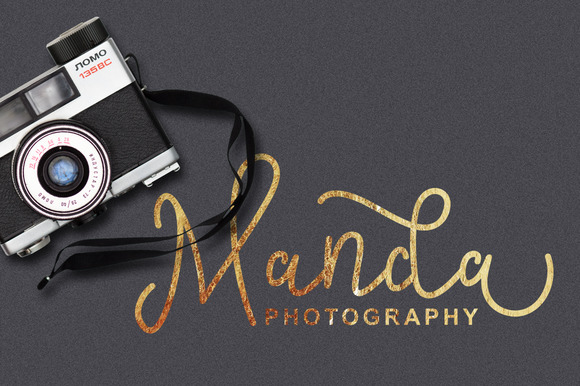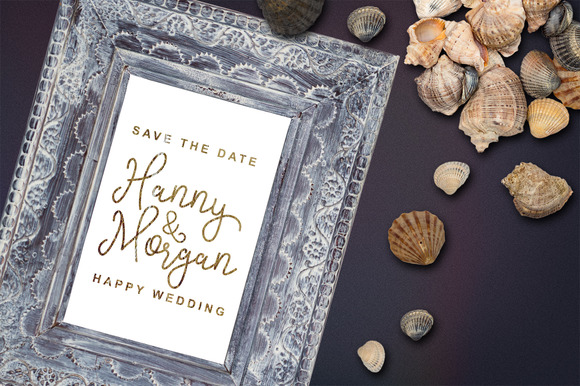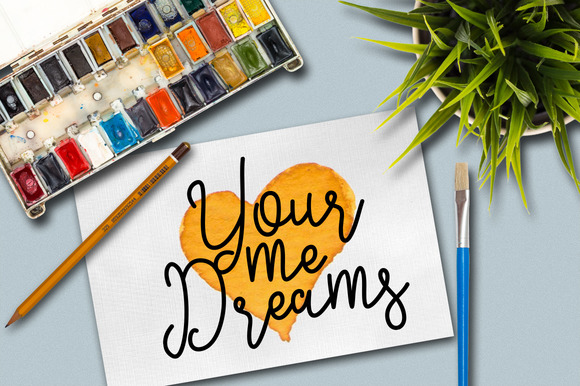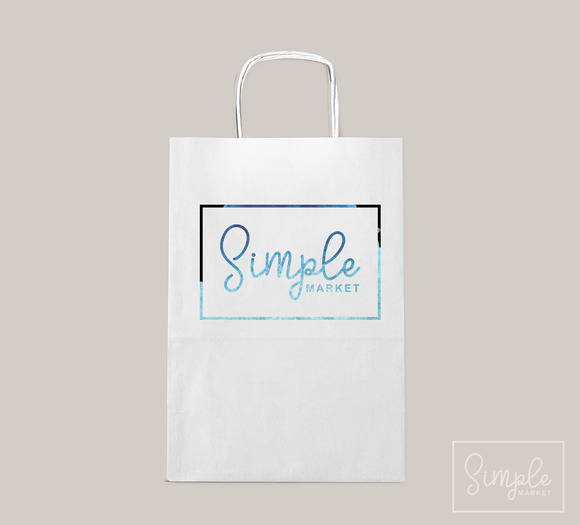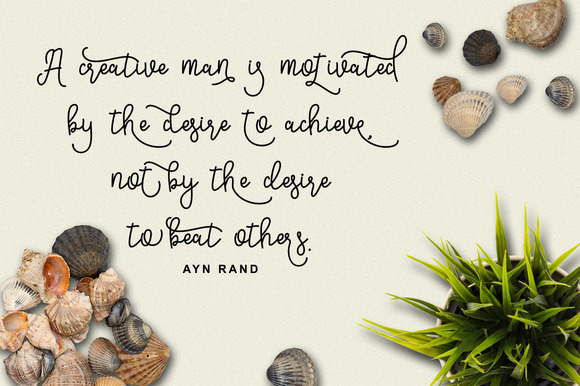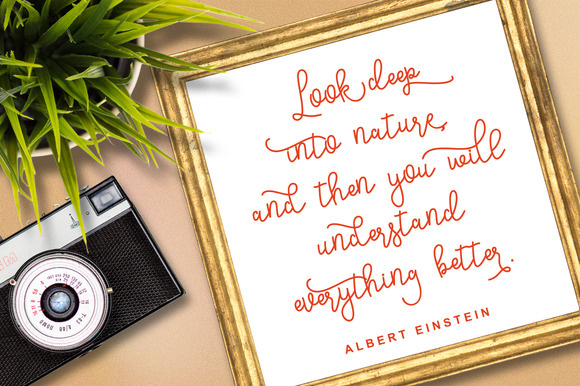
Introduction to Sinyak Script Font Font
Fonts play a crucial role in design, and the Sinyak Script Font font is a typeface that brings both character and versatility to any project. Whether you’re working on a branding project, a website, or a print design, the Sinyak Script Font font offers a unique style that can elevate your work.
Sinyak Script by IjemRockArt / Letterplay.
Key Features of Sinyak Script Font Font
Why Choose Sinyak Script Font Font?
The Sinyak Script Font font is more than just a typeface – it’s a design tool that helps you communicate your message with style and clarity. Its unique character set and versatile design make it suitable for a wide range of applications, from elegant invitations to bold headlines.
With its carefully crafted letterforms and balanced proportions, the Sinyak Script Font font ensures readability and visual appeal across all mediums.
What makes Sinyak Script Font font special?
The Sinyak Script Font font stands out with its unique design, exceptional readability, and versatility across various design applications.